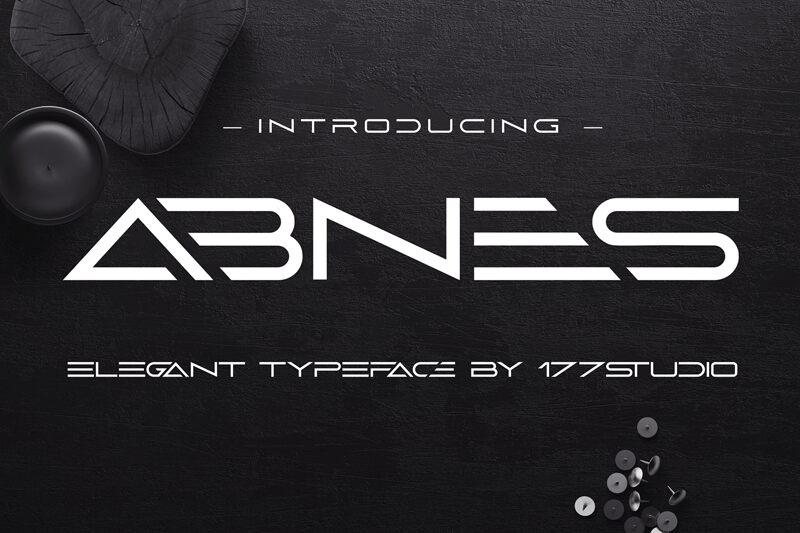
ABNES is a stunning classy modern bold all-caps sans serif. Its an Elegant Sans serif typeface, Fashionable, Classy but still Modern. Designed with powerful opentype features in mind, and some nuances aid in legibility and give it a harmonious appearance for both texts and headlines.